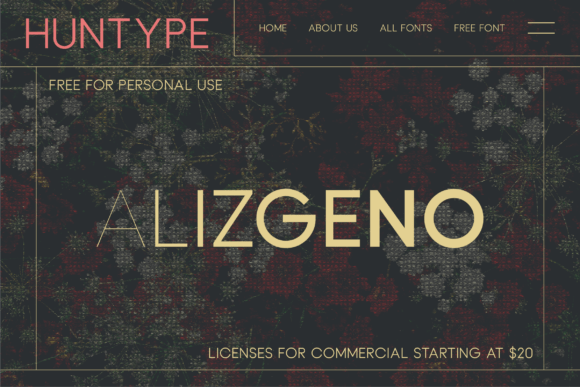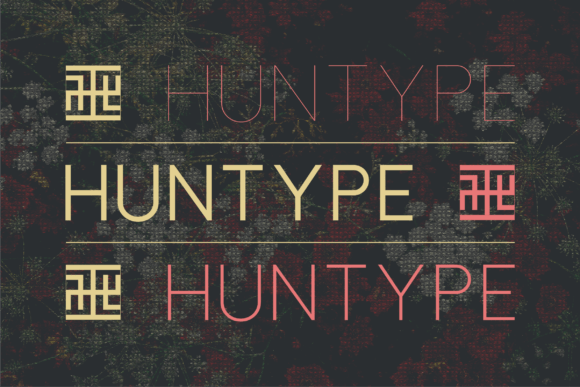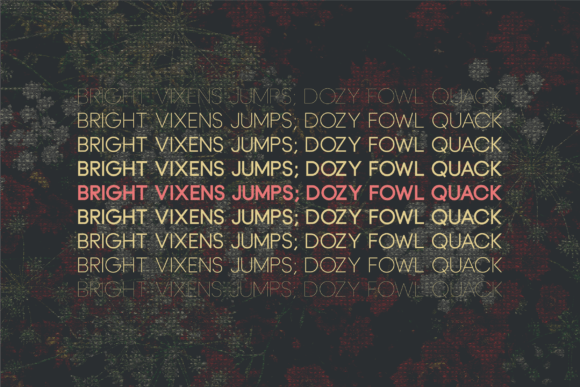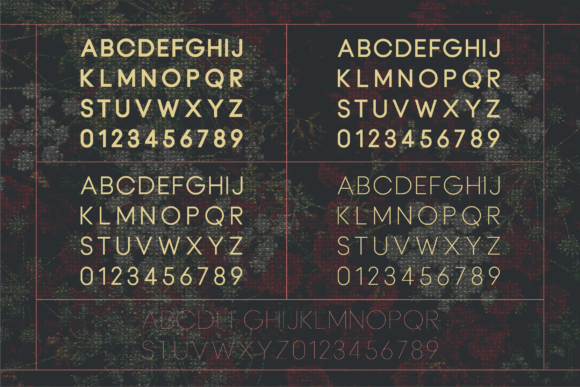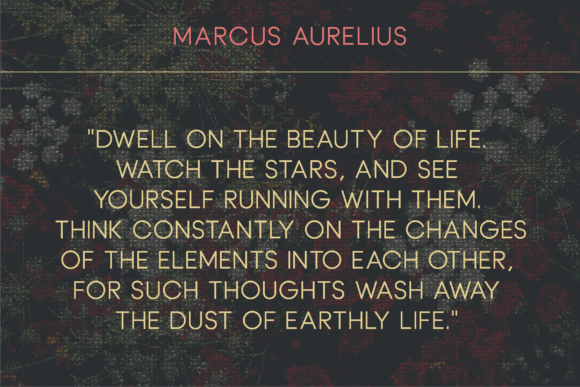
The Designer’s Dilemma: A Font Family that Stands Out
Ah, the eternal quest for the perfect font. I still remember the countless hours I spent scrolling through font libraries, searching for that one elusive typeface that would bring my design project to life. My client was pushing for a modern, elegant look, but I was struggling to find a font that ticked all the boxes. That was until I stumbled upon the Alizgeno Sans Serif Family.
This meticulously crafted font family has been a game-changer for me, and I’m excited to share my experience with you. With its five distinct weights—THIN, LIGHT, REGULAR, BOLD, and BLACK—the Alizgeno Family offers a wide range of creative possibilities, making it the perfect choice for designers and content creators.
What I Love About Alizgeno Font
• ✨ Elegant and modern design: Alizgeno’s sleek lines and sophisticated style make it perfect for projects that require a touch of luxury.
• âś… Versatility: With five weights to choose from, you can use Alizgeno for everything from subtle, delicate text to bold, impactful headlines.
• đź’ˇ OpenType features: Alizgeno supports a range of OpenType features, including stylistic alternates, ligatures, and more.
While Alizgeno is an exceptional font family, there are a few minor quirks to be aware of:
• 🤔 Limited character set: Alizgeno’s character set is clean and minimalist, but it may not include some specialized characters or glyphs.
• ⚠️ Kerning issues: As with any font, kerning can be a issue, especially when using the THIN or LIGHT weights.
The Story Behind Alizgeno
The Alizgeno Sans Serif Family was designed with the goal of creating a modern, elegant font that would meet the needs of designers and content creators. The design team spent countless hours perfecting the font’s lines, curves, and spacing to create a truly versatile typeface.
Q: What is the x-height of Alizgeno?
A: The x-height of Alizgeno is approximately 0.5, making it suitable for body text and headlines.
Q: Does Alizgeno support OpenType features?
A: Yes, Alizgeno supports a range of OpenType features, including stylistic alternates, ligatures, and more.
Q: Is Alizgeno suitable for body text?
A: Yes, Alizgeno’s clear lines and moderate x-height make it suitable for body text, especially in the REGULAR and LIGHT weights.